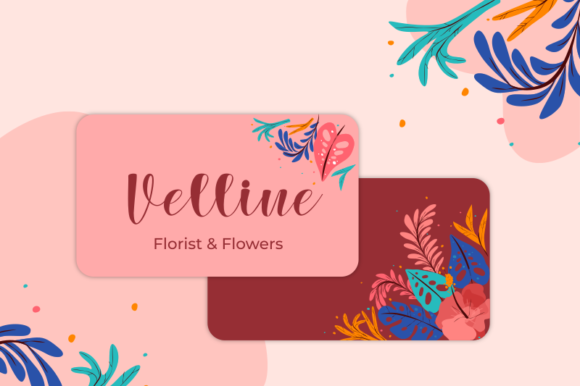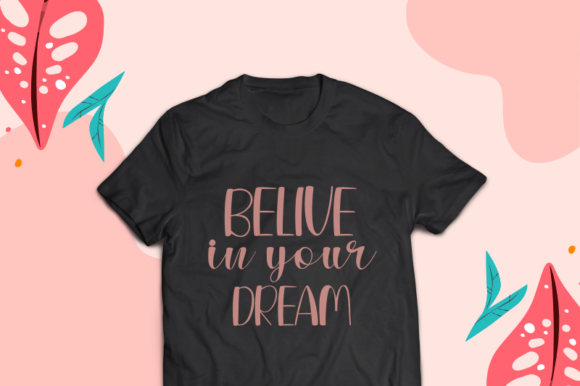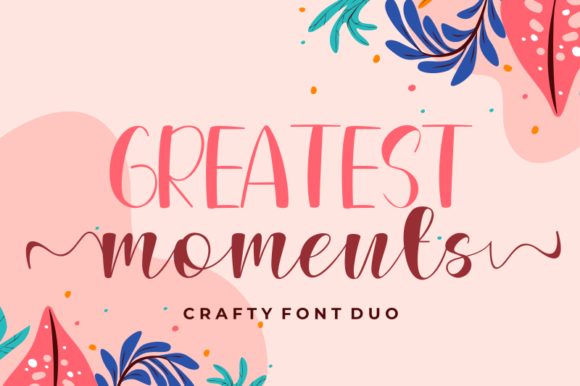
Introduction to Greatest Moments Font
Greatest Moments is a lovely and relaxed duo font (sans serif and script).
Incredibly versatile, this font fits a wide pool of designs, elevating them to the highest levels This font is PUA encoded which means you can access all of the glyphs and swashes with ease.